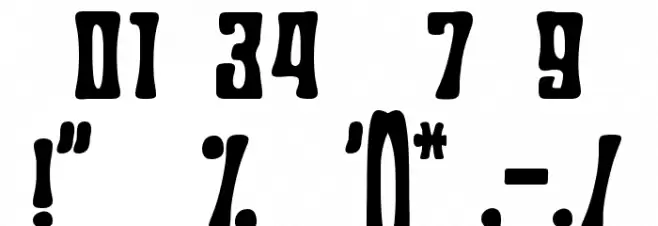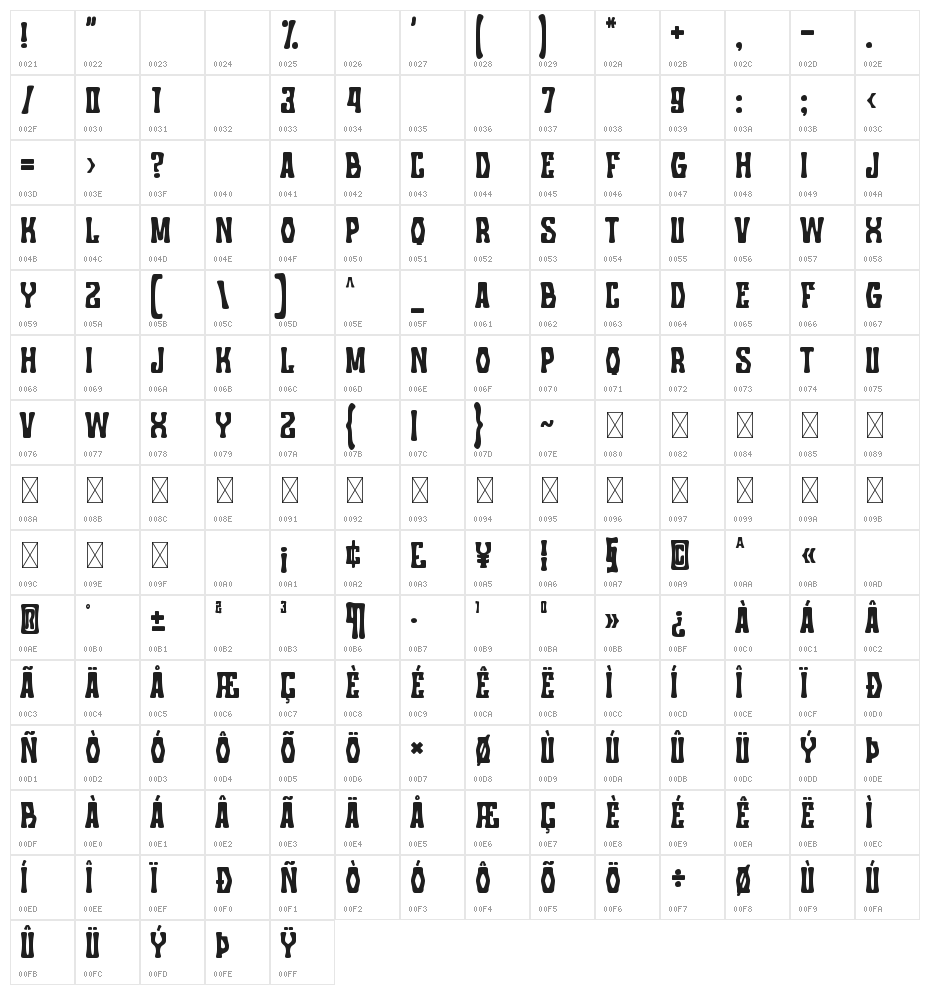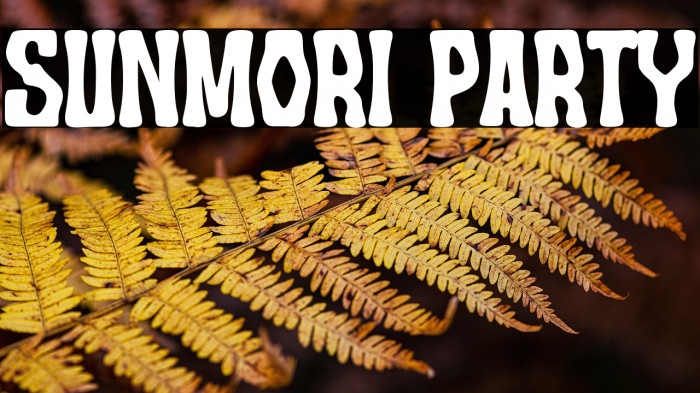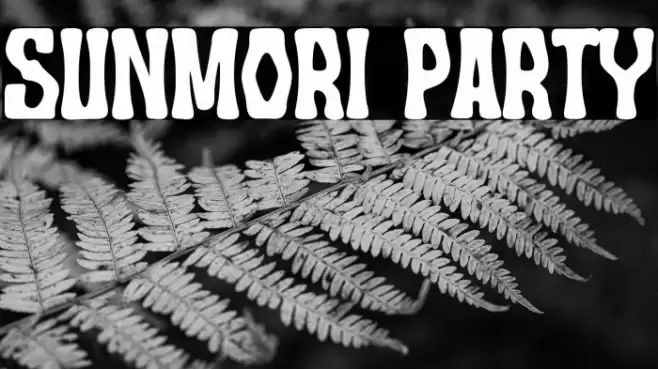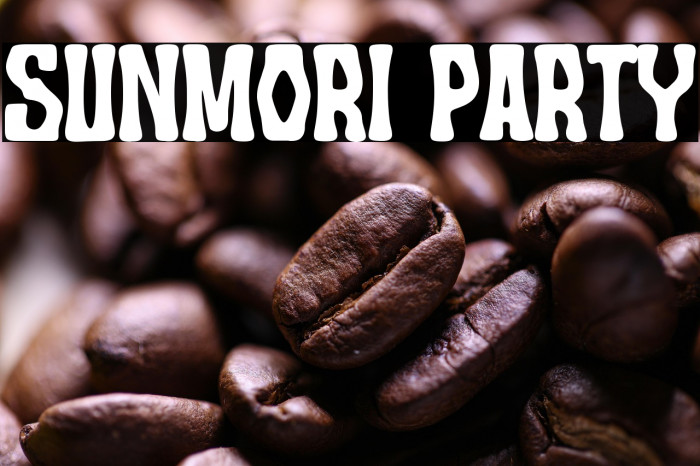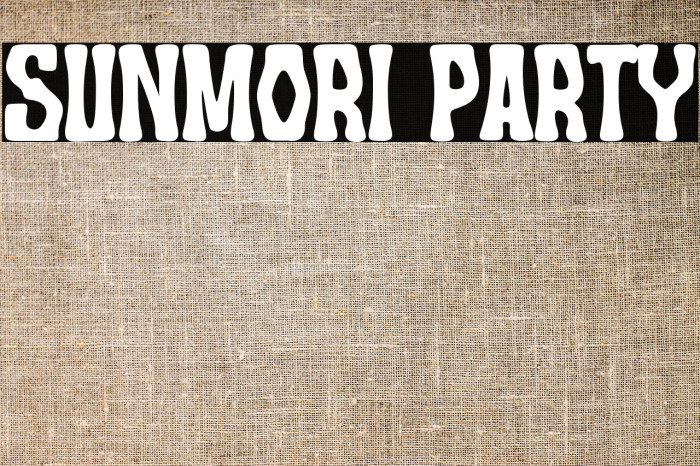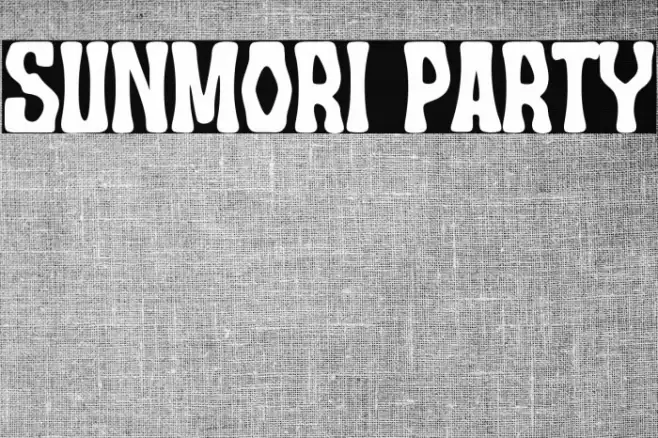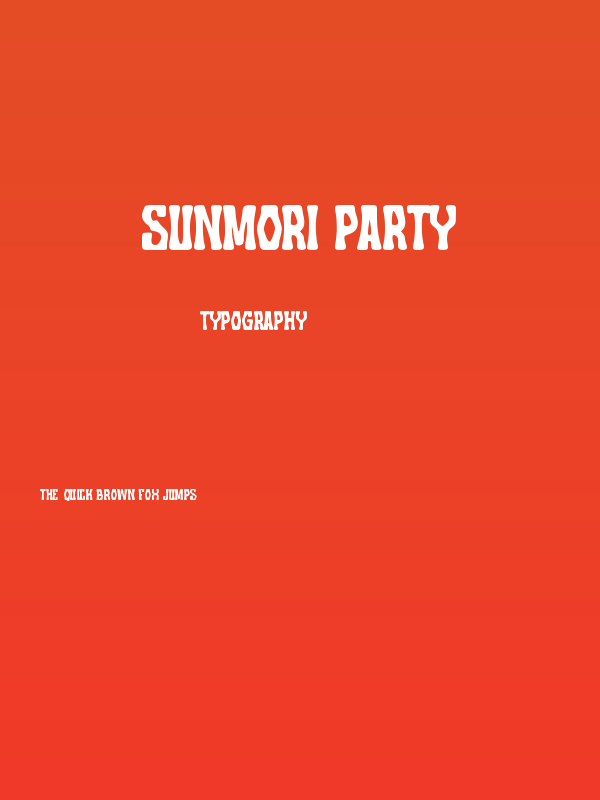
Sunmori Party Font
Sunmori Party Description
This font features a bold and playful design with a strong presence. The characters are thick and slightly irregular, giving them a whimsical and energetic feel. The uppercase and lowercase letters maintain a consistent style, with rounded edges and a slightly condensed form. The numbers and special characters follow the same playful aesthetic, making the font suitable for creative and informal projects. The overall look is reminiscent of retro or vintage styles, with a modern twist that adds a unique flair.
| Proposed Projects | Ideal for party invitations, children's books, posters, and branding that requires a fun and lively touch. |